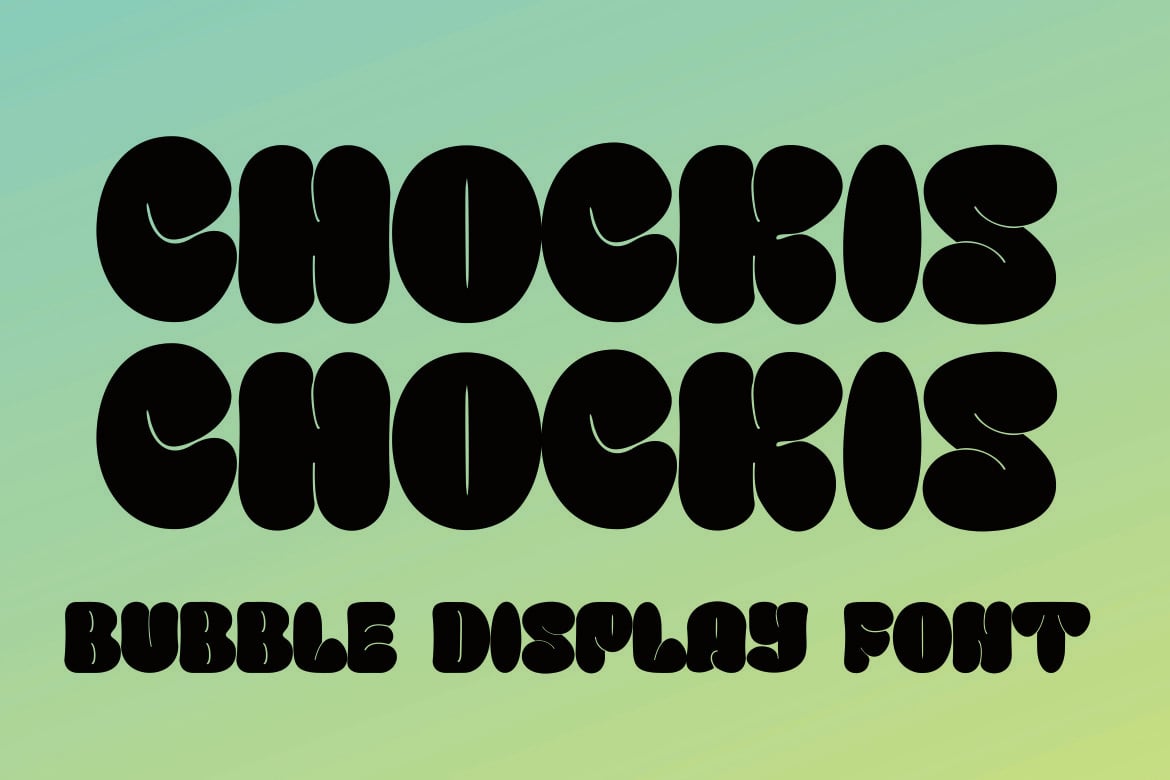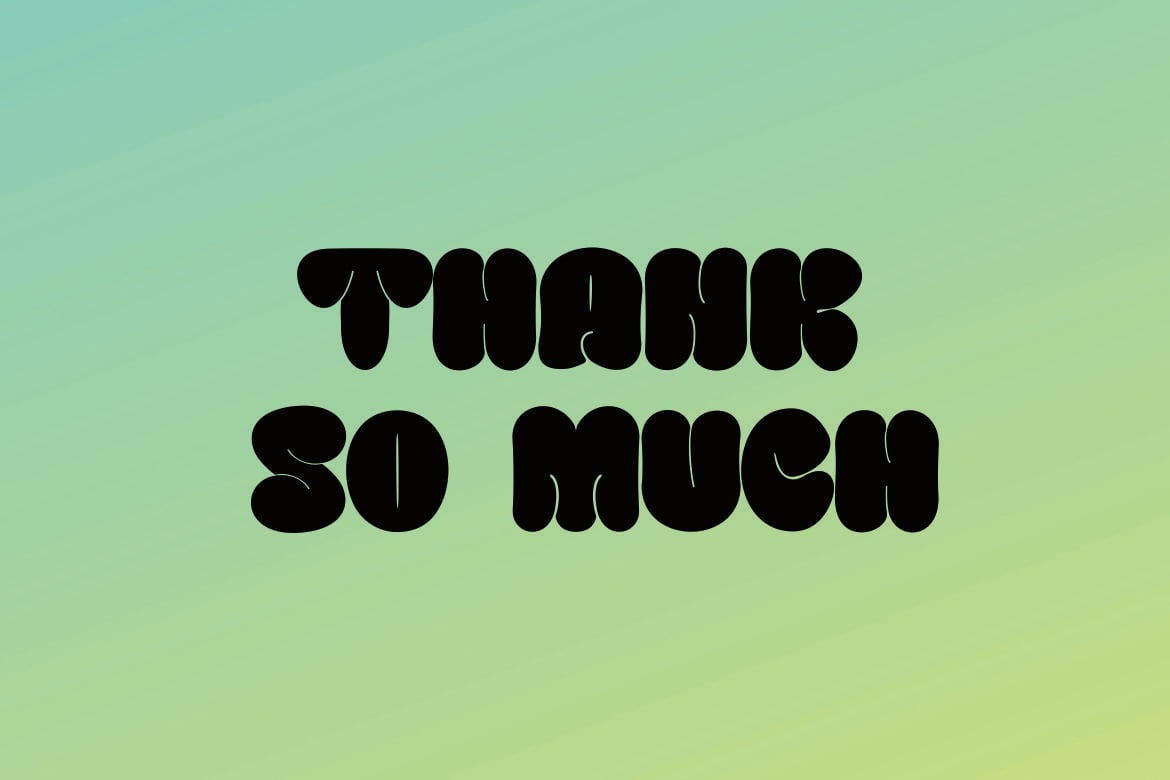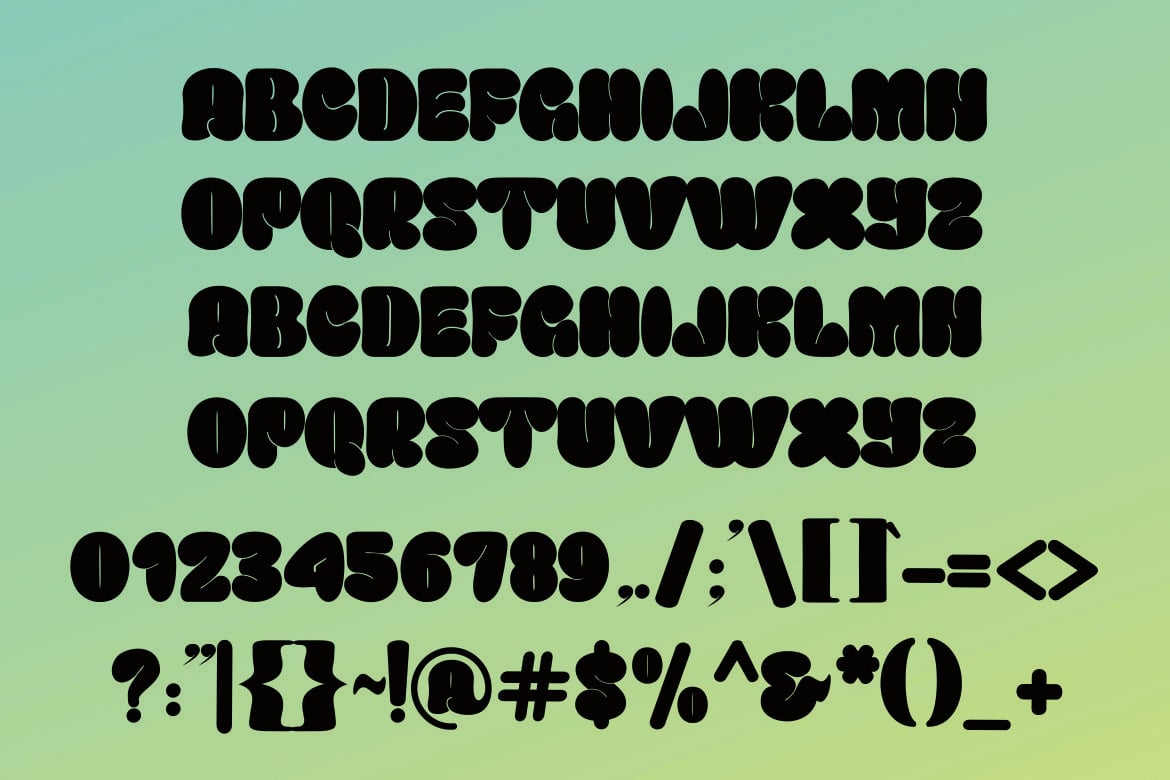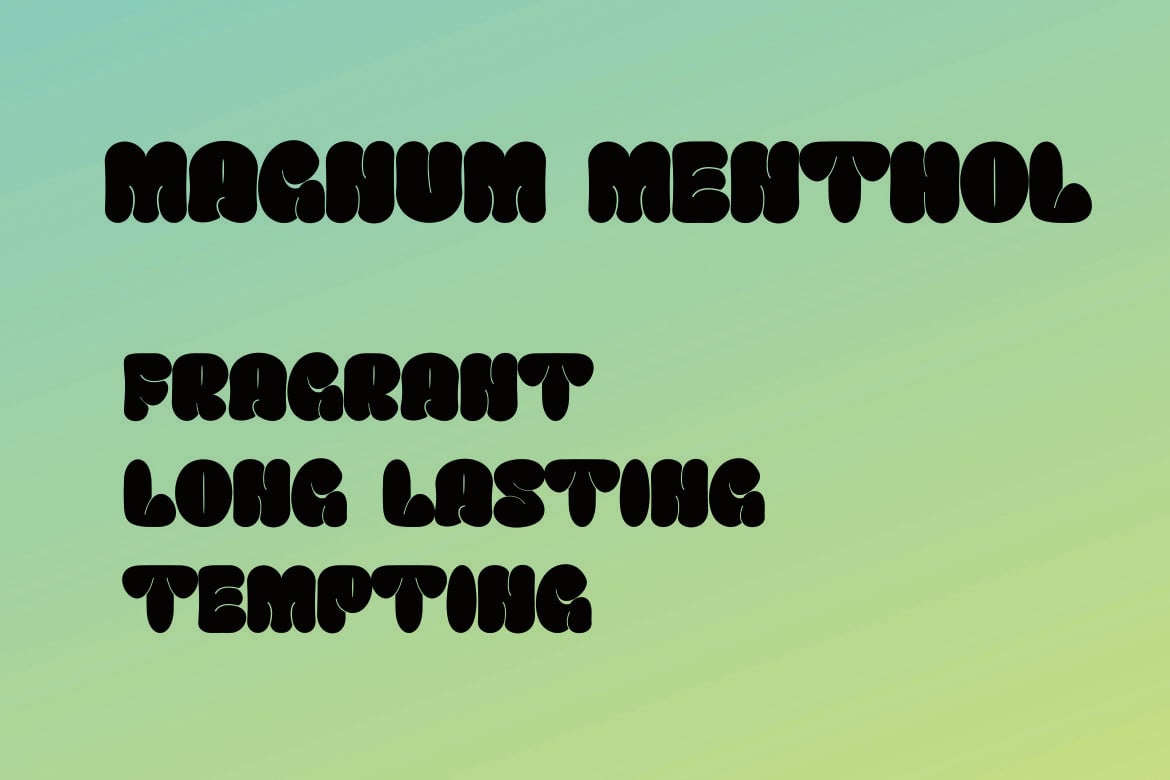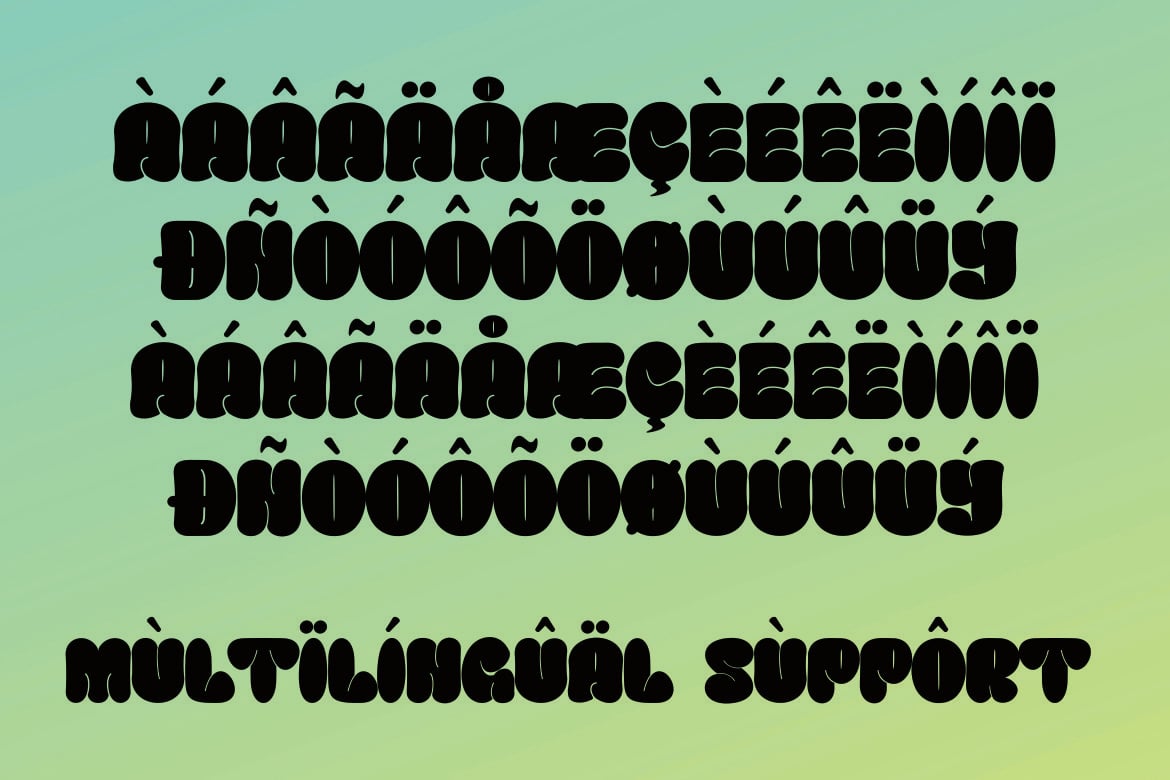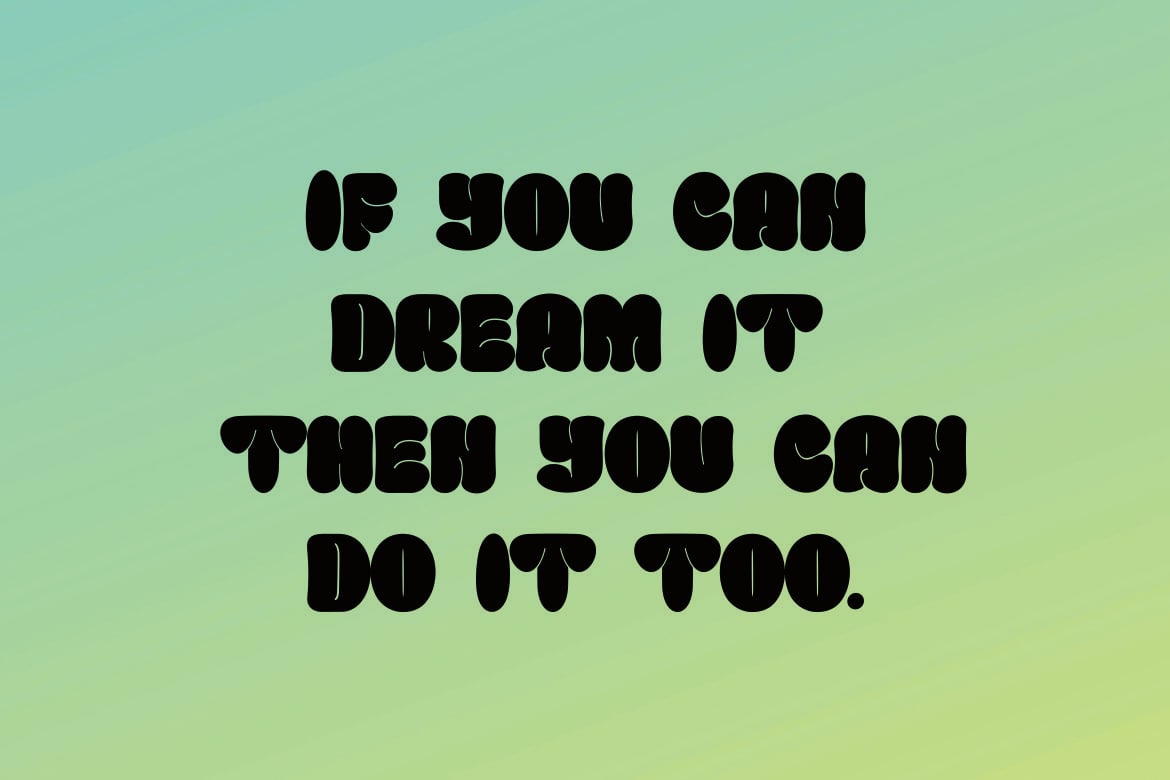
Chockis – Bubble Display Font
Introducing our new product Chockis – Bubble Display Font Modern Font
Chockis – Bubble Display Font – Modern Font is a bold and authentic display font. The font is suitable for any branding project like logo, t-shirt printing, esport, and many more. outstanding in a wide range of contexts.
- lowercase
- multilingual